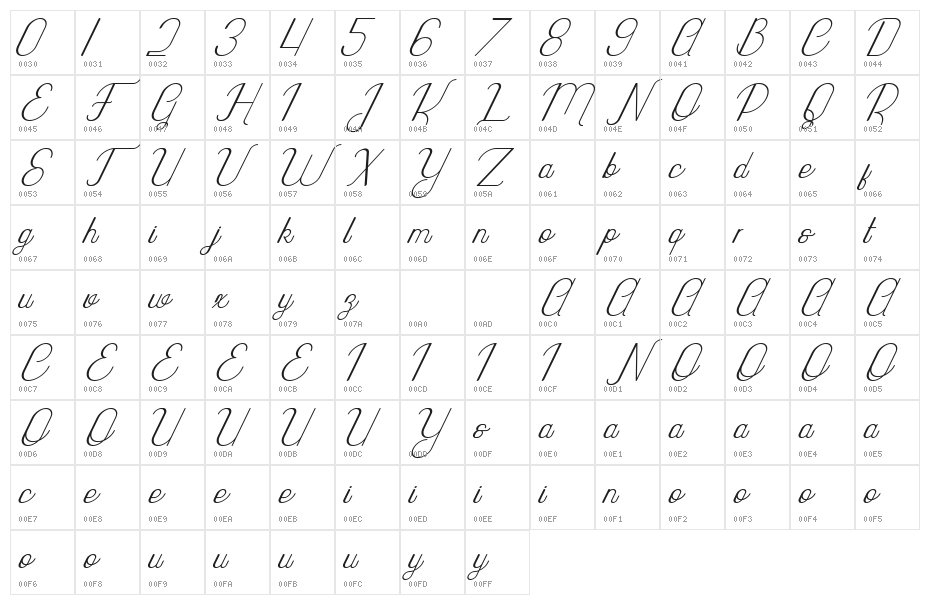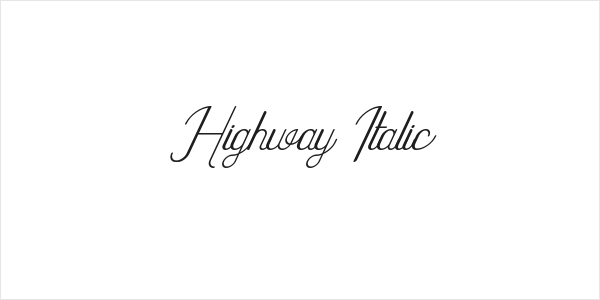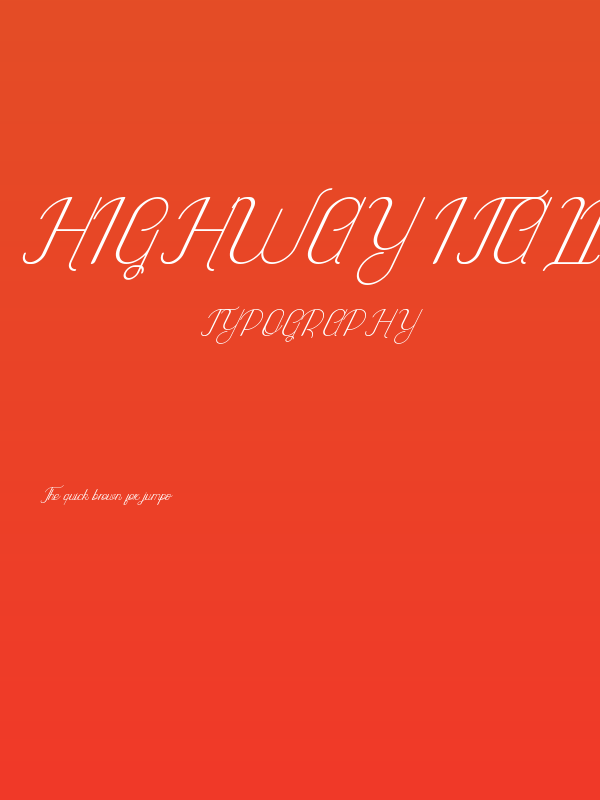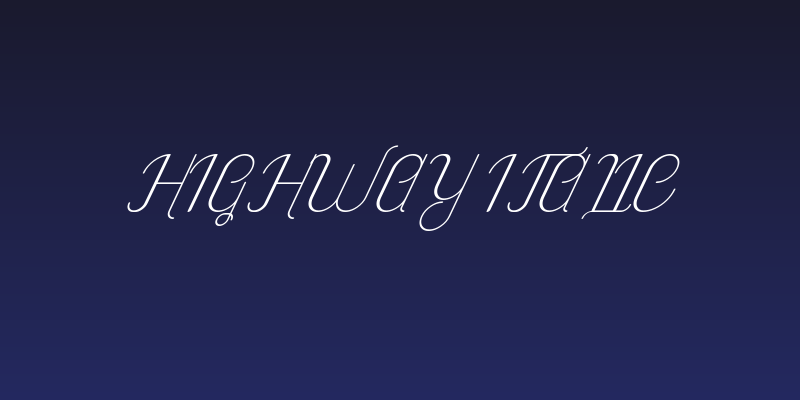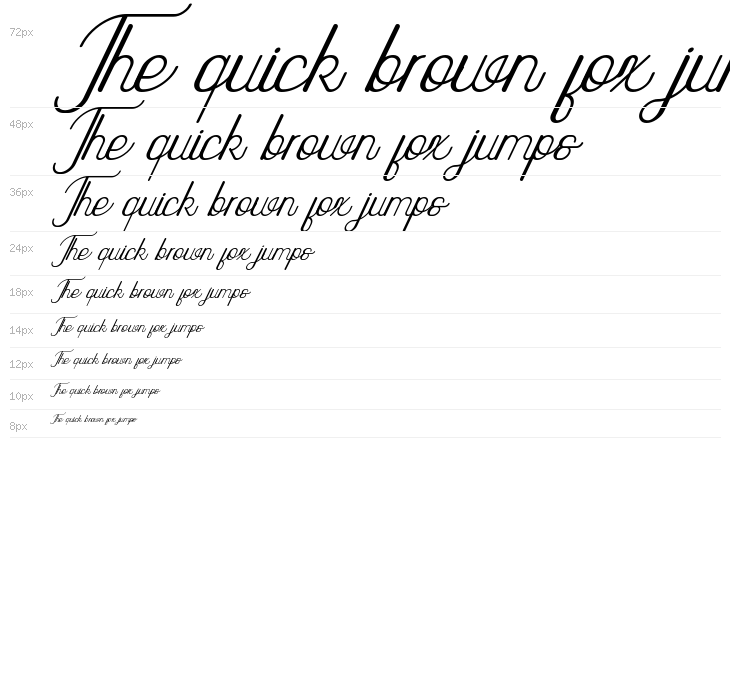
Highway Italic Font
Highway Italic Description
This font features an elegant and flowing script style with a distinct italic slant, giving it a sense of motion and sophistication. The characters are connected in a cursive manner, creating a seamless and fluid appearance. The uppercase letters are tall and slender, while the lowercase letters maintain a consistent height, enhancing readability. The numerals are designed to match the overall style, with a graceful and elongated form. The special characters blend seamlessly with the alphabet, maintaining the font's cohesive look. This font exudes a sense of elegance and is suitable for projects that require a touch of class and refinement.
| Proposed Projects | Ideal for wedding invitations, elegant branding, and sophisticated logo designs. |